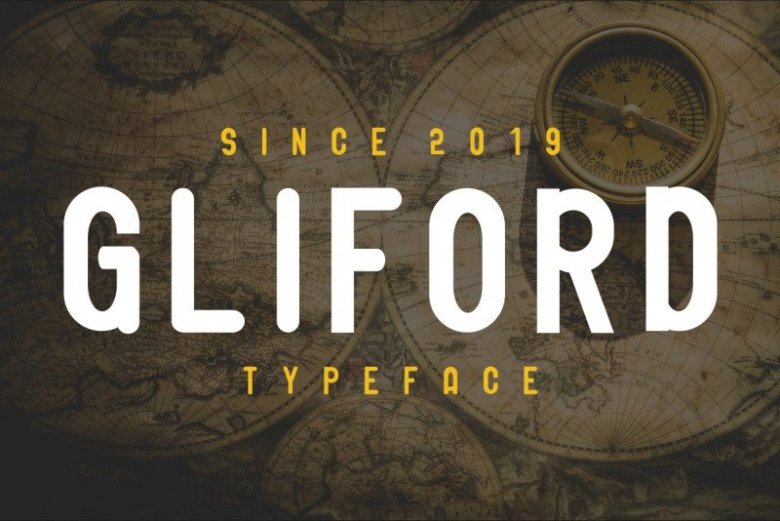
GLIFORD Typeface
i Everybody! Kindly meet : GLIFORD ! This is a Sans-Serif font with many usages. The original theme was Retro-Vintage Style, but now we realize it’s more than just vintage stuff.
It has THREE STYLES : Regular, Grunge and Italic The Regular one is the General! It can be used for comic, branding, schools, kids theme etc. The Grunge is one of a kind of retro-vintage un-usual style The Italic is the lady of stylish yet fun.
All these 3 fonts will be great for many purposes : poster, flyer, comic, logo, game asset, shirt etc This font will suitable for many industry: kids, school, gaming, adventure, outdoor apparel, clothing, etc